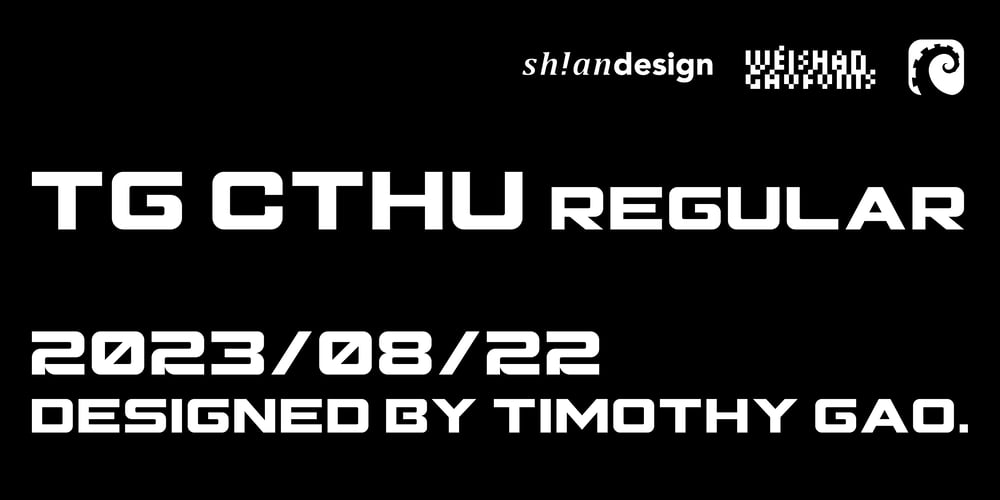
TG Cthu Font Family was designed by Weishan Gao and published by Weishan Gao. TG Cthu contains 1 styles and family package options. This is an industrial-style font with a strong and powerful presence, suitable for use in headings and slogans. It can be applied to industries such as factories and construction.